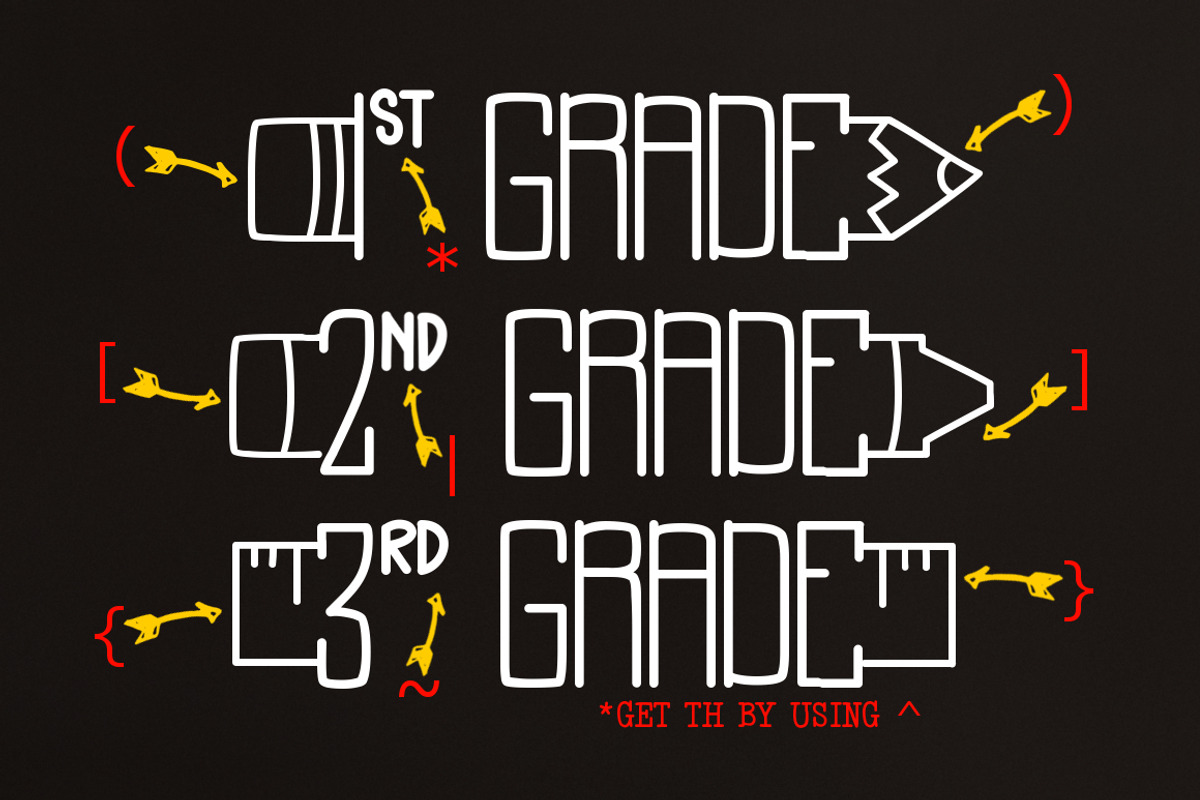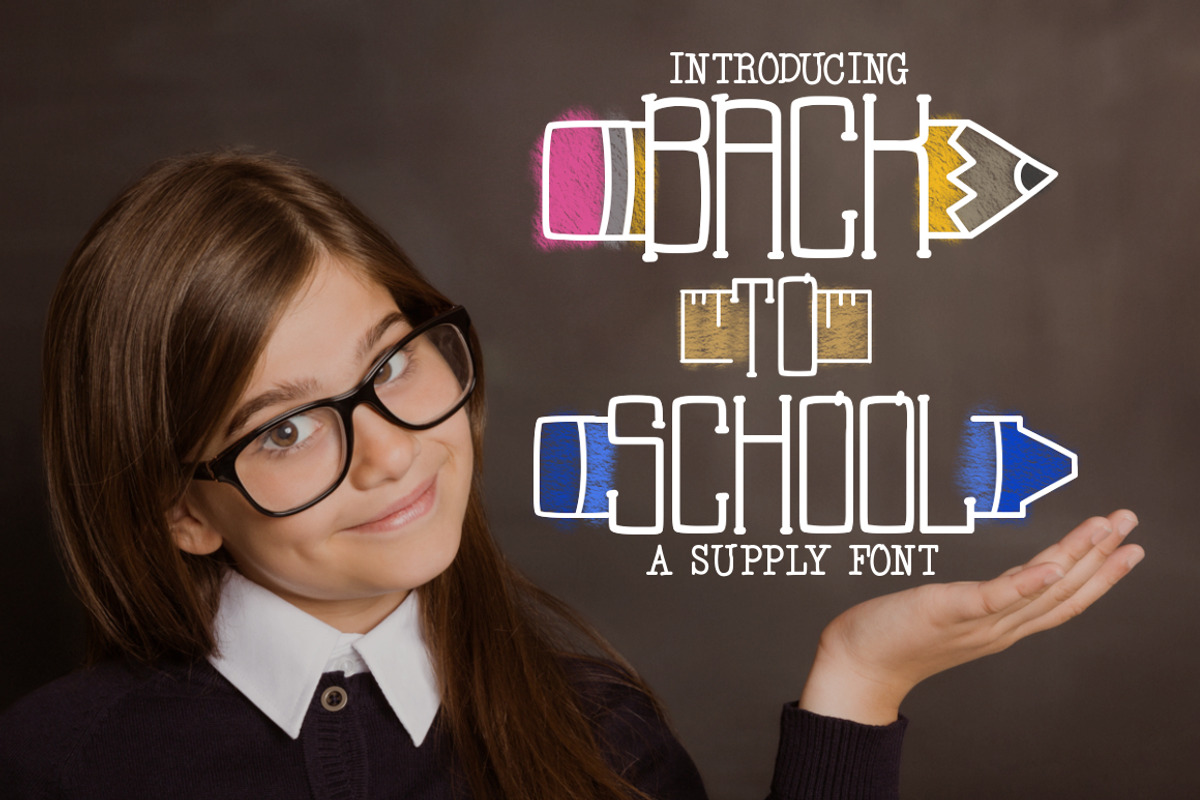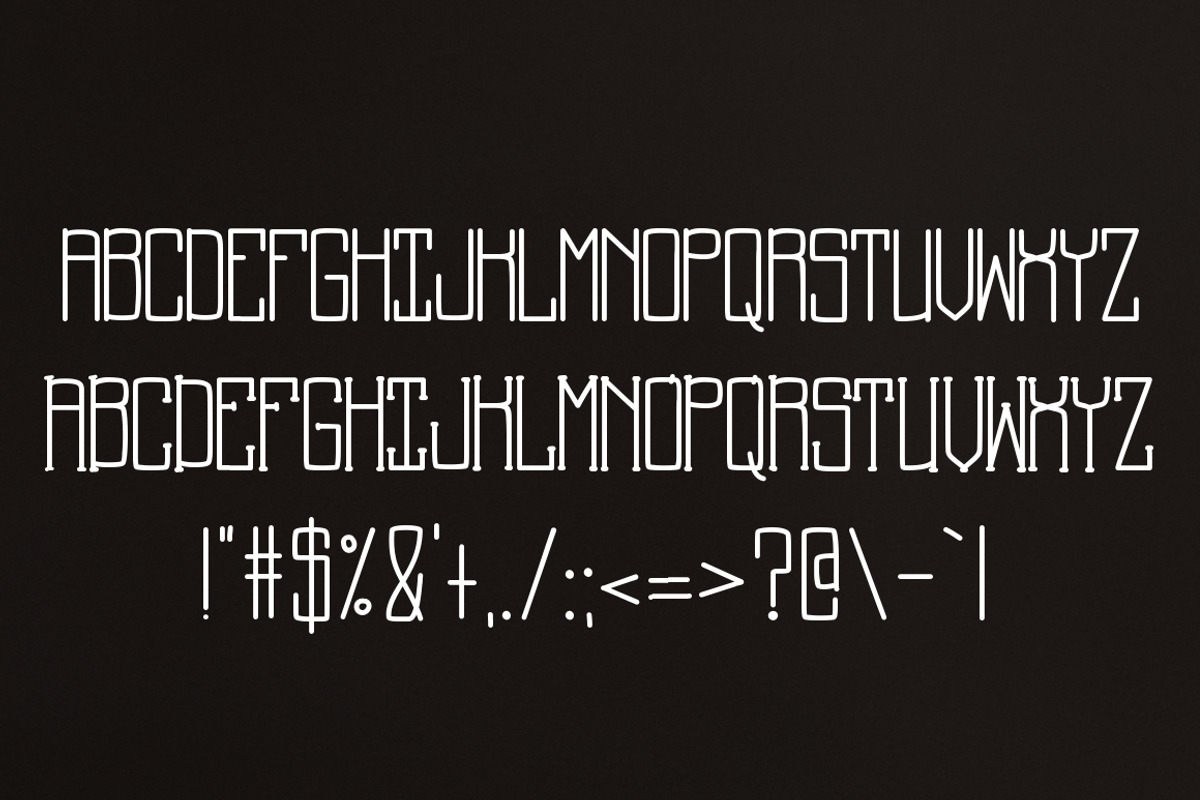
Back to School a Supply Font
Back to School is a great font to add to any school themed project. This font has cute graphics to add to the beginning and end of each word and phrase.
Why Back to School a Supply Font is worth a look
Back to School a Supply Font by Kitaleigh fits naturally into Branding, posters, packaging, typography.